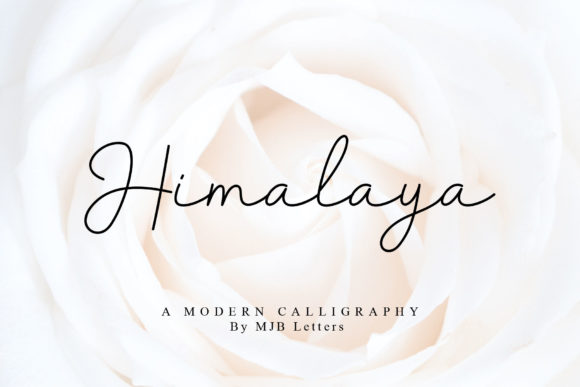
Journey into the realm of boundless creativity with Himalaya Font, a script typeface that dances across the digital canvas with unmatched grace and sophistication. Handcrafted by the skilled artisans at MJB Letters, this font family has been hailed as one of the "Best Fonts For Web Design 2014", a testament to its timeless appeal and versatility.
Himalaya Font is an extraordinary fusion of classic charm and modern aesthetics. Its smooth, flowing lines evoke a sense of elegance and refinement, while its carefully crafted characters exude a timeless charm that transcends fleeting trends. Whether you're a seasoned designer or just starting your creative journey, Himalaya Font will elevate your designs to new heights of sophistication.
This versatile font family is a true chameleon, effortlessly adapting to a myriad of design projects. Its graceful curves and elegant flourishes make it an ideal choice for branding, logos, and marketing materials, where it commands attention and leaves a lasting impression. Unleash your imagination and let Himalaya Font guide you in creating captivating headlines, eye-catching posters, and unforgettable invitations that will set your work apart.
Himalaya Font's versatility extends to web design, where it shines as a beacon of clarity and readability. Its carefully crafted letterforms ensure optimal legibility, even at smaller sizes, making it a favorite among web designers seeking a font that combines aesthetics with functionality. Craft user interfaces that are both visually appealing and user-friendly, ensuring that your website or application provides an exceptional user experience.
Beyond its technical prowess, Himalaya Font possesses an emotional depth that resonates with audiences. Its graceful lines and elegant curves evoke a sense of nostalgia and romance, transporting users to a bygone era of timeless beauty. Tap into the emotional power of Himalaya Font to create designs that connect with your audience on a deeper level, leaving them captivated and inspired.
With Himalaya Font, the possibilities are limitless. Unleash your creativity and watch as your designs blossom into masterpieces. Join the ranks of discerning designers who have discovered the transformative power of Himalaya Font. Embrace its elegance, harness its versatility, and embark on a creative journey that will leave an indelible mark on the digital landscape.